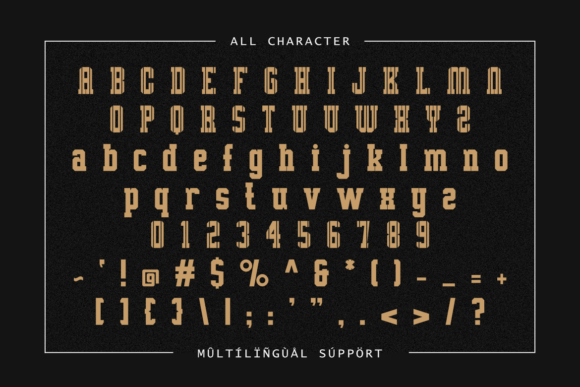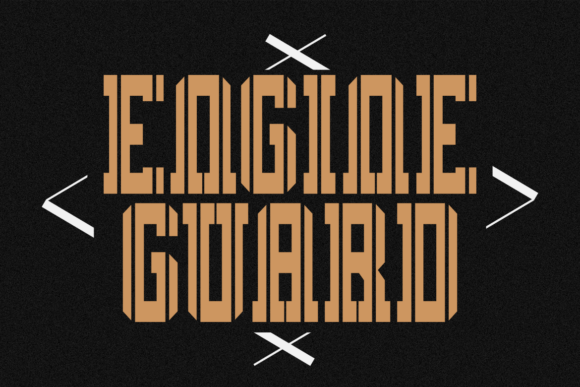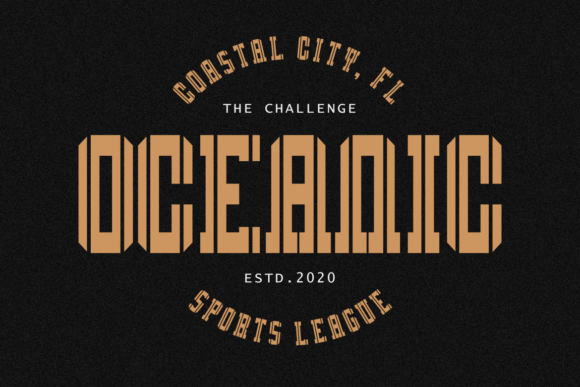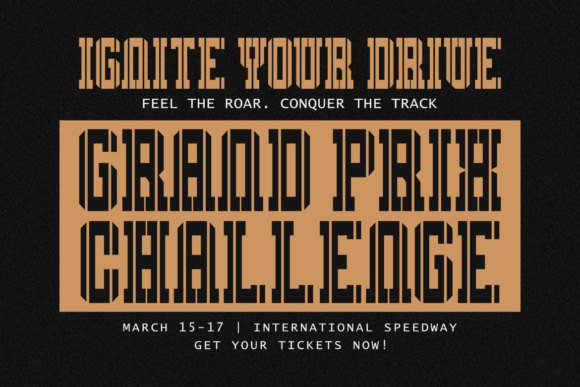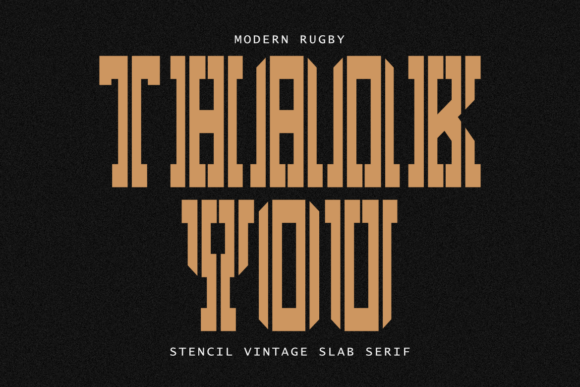
Introduction to Modern Rugby Font
Introducing Modern Rugby – a vintage-inspired, stencil slab serif font.
Crafted with keen attention to details, Modern Rugby breathes life into everything it touches Whether it’s stylish t-shirts, memorable quotes, distinctive logos, high-precision laser cuts, striking signs, fashionable apparel, professional printing, clearly labelled goods, charismatic mugs – or any design craving a feel of nostalgia.
Key Features of Modern Rugby Font